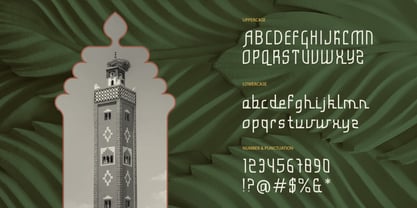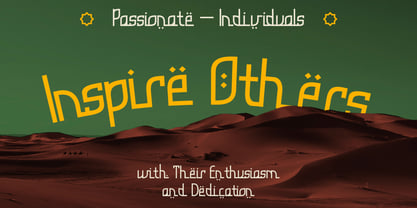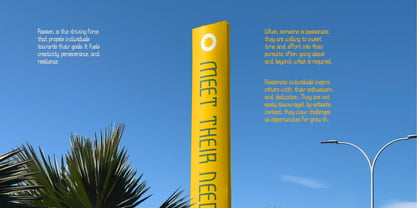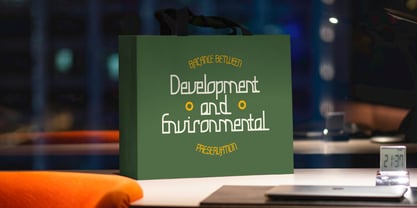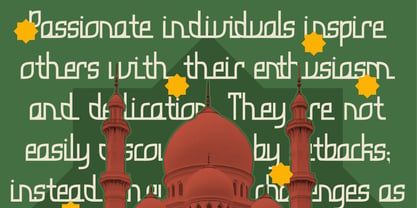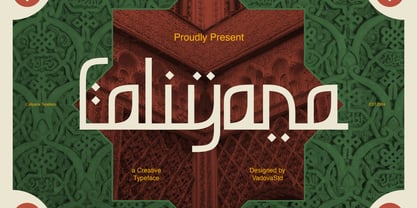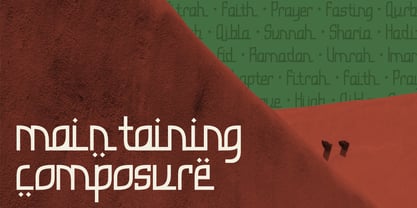
Caliyana
by Vadova Std
The Caliyana Font Family was designed by and published by Vadova Std. Caliyana contains 1 styles. More about this family
Caliyana is a sophisticated and creative display typeface that blends rich cultural expression with contemporary design principles. Inspired by the elegance of Middle Eastern architecture, traditional calligraphy, and ornamental geometry, this typeface brings an artistic narrative to every letterform. Its uniquely constructed characters combine geometric discipline with decorative flourishes, resulting in a style that feels both rooted in heritage and refreshingly modern. Designed especially for display use, Caliyana excels in applications where personality and cultural context matter such as Islamic art publications, museum branding, Ramadan campaigns, Eid greetings, artisanal packaging, or boutique fashion labels with a Middle Eastern influence. Its ability to convey elegance and cultural depth makes it a perfect choice for editorial spreads, signage, posters, or social media visuals that aim to celebrate identity and storytelling through design.